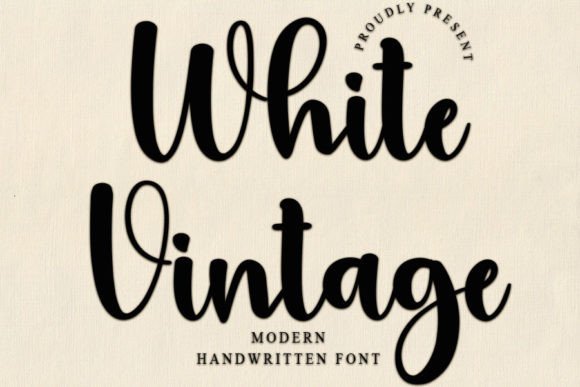
Welcome to the captivating world of White Vintage, a script font family exuding sophistication and grace, designed by the talented PiPi Creative. This breathtaking font is a visual masterpiece, carefully crafted to infuse your designs with a timeless charm and elegance.
White Vintage is more than just a font; it's an artistic expression that dances across your screens, leaving a trail of visual enchantment. Its delicate strokes, reminiscent of a calligrapher's quill, evoke a sense of nostalgia and romance, transporting you to a bygone era of handwritten letters and vintage manuscripts.
Dive into the world of White Vintage and discover a font that's as versatile as it is beautiful. Its graceful curves and elegant lines lend themselves effortlessly to a multitude of design projects, from heartfelt wedding invitations and captivating logos to whimsical social media posts and enchanting branding materials.
With White Vintage, you have the power to transform the mundane into the extraordinary. Its timeless appeal adds a touch of refinement to any project, instantly elevating it to a work of art. Let your creativity soar as you explore the endless possibilities that White Vintage holds, breathing life into your designs and captivating the hearts of your audience.
Step into the world of White Vintage and unlock a font that's not just a collection of letters, but a gateway to a world of creative possibilities. Its exquisite beauty and timeless charm will leave an indelible mark on your designs, ensuring they stand out from the crowd and speak volumes about your discerning taste and attention to detail.